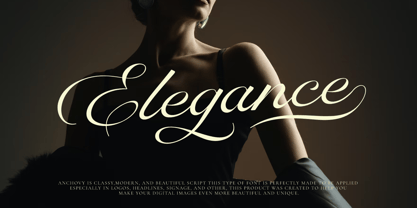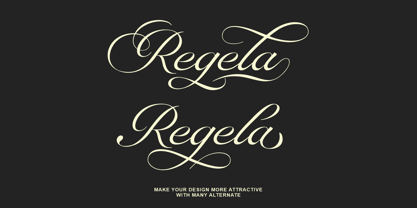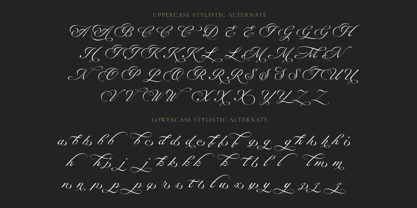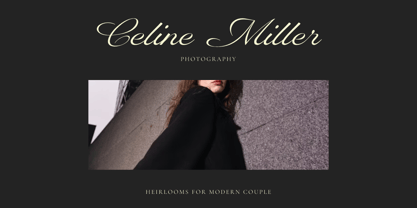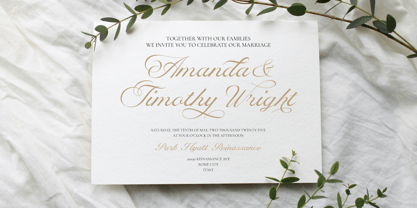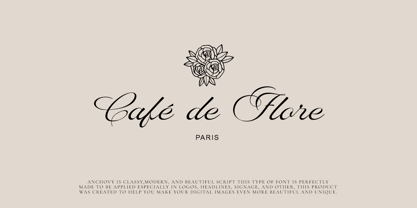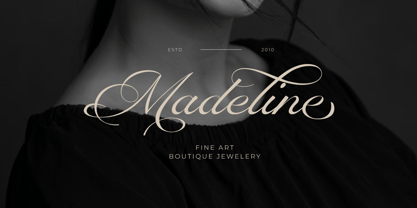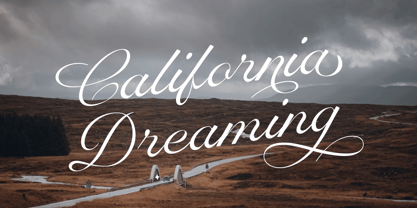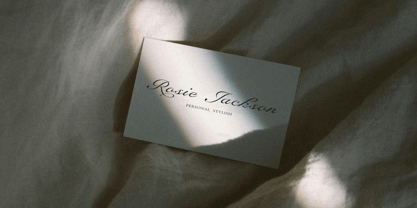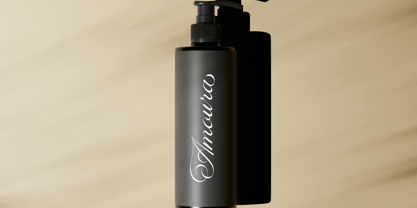
RB Anchovy
by Reyrey Blue Std
The RB Anchovy Font Family was designed by Risca Anitawati and published by Reyrey Blue Std. RB Anchovy contains 1 styles.
Anchovy – Elegant Script Font for Luxury Branding & Design
Looking for a font that exudes elegance, sophistication, and timeless charm? Meet Anchovy, a beautifully crafted modern script typeface designed to bring a touch of luxury to your creative projects.
With its graceful curves, flowing strokes, and refined ligatures, Anchovy is the perfect choice for premium branding, wedding invitations, fashion editorials, and high-end packaging. This font effortlessly blends classic calligraphy with a contemporary aesthetic, making it ideal for both digital and print applications.
Exquisite Script Style – A perfect balance of elegance and readability.
Smooth, Flowing Strokes – Ideal for luxury branding and formal invitations.
Versatile Usage – Suitable for logos, packaging, stationery, headlines, and more.
Premium & Timeless Appeal – Crafted for high-end fashion, beauty, and lifestyle brands.
Multi-Language Support – Designed to work seamlessly in various languages.
• Luxury brands seeking a distinctive, sophisticated identity.
• Wedding & event designers looking for an elegant script font.
• Fashion, beauty, and lifestyle industries that need a refined, modern touch.
• Graphic designers & creatives who want to elevate their projects with a premium typeface.